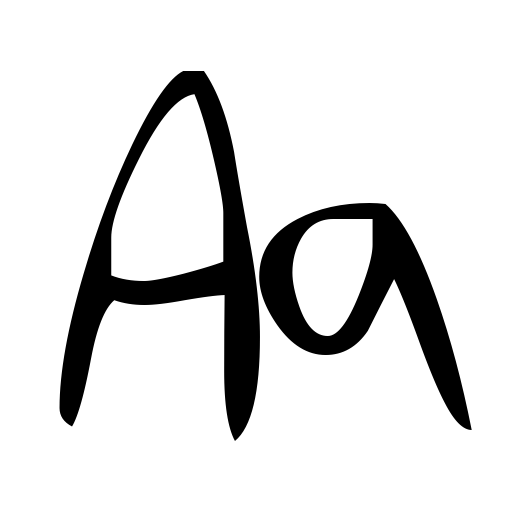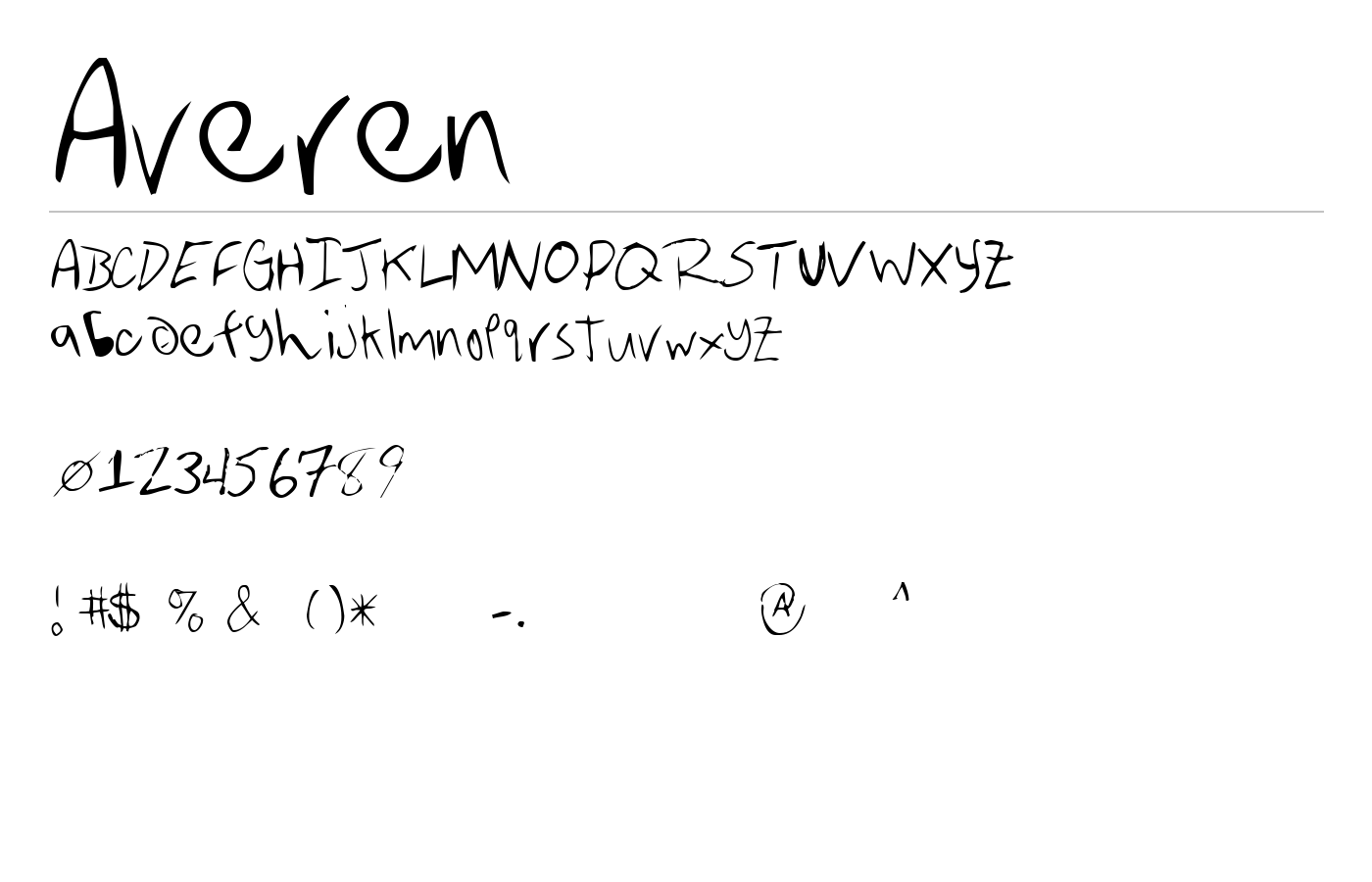
Averen is a playful, hand-drawn sans serif font with a casual and whimsical character. Its thin, uneven strokes and irregular letterforms give it a personal, informal feel, making it perfect for creative projects, children’s books, or artistic branding that seeks an approachable and unique touch. This font works best in headlines, invitations, or other display uses where its charming personality can truly shine.
Averen Font
About Averen Font